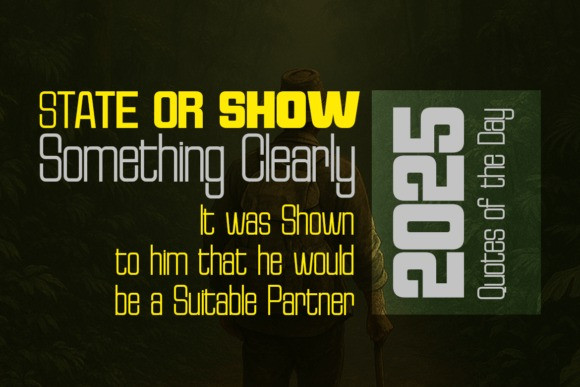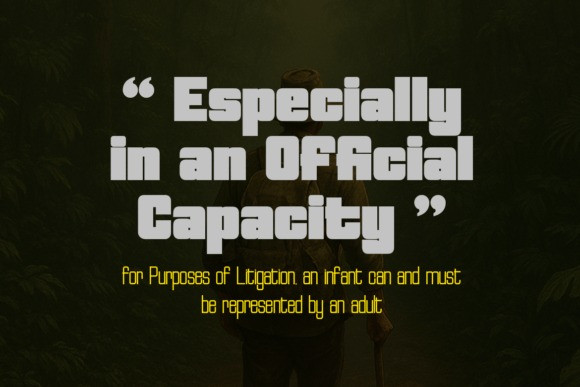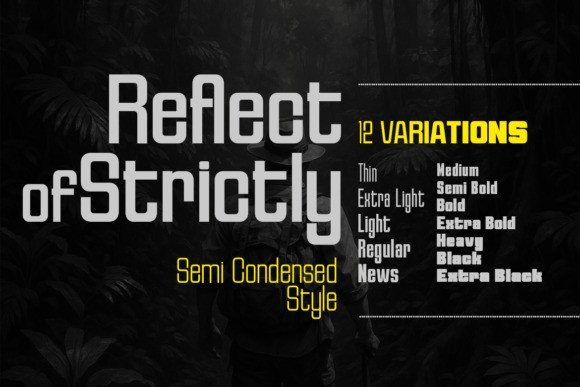
Reflect Of Strictly Semi Condensed Font
Reflect Of Strictly Semi Condensed Font Family is a sans serif font Semi Condensed that has the perfect balance between the familiar and the unexpected. With Reflect of Strictly, designers can use this font for various needs in creating elegant design works.
Please note, Reflect of Strictly is a sans serif font family that is different from other sans serifs and is expressive, because Reflect of Strictly is more assertive. Reflect of Strictly is a variation characterized by flexibility that looks cool in the glyph character section.
Reflect of Strictly can decorate the pages of top fashion magazines and publications in print media and web pages. Reflect of Strictly flows with a vintage charm that supports contemporary designs.
Reflect of Strictly looks amazing in logos, magazines, and films. This font will be perfect for branding, headlines, captions, paragraphs, and posters. The various weights allow you to experiment with different applications. This font is made to make an impression without sacrificing its beauty and readability.